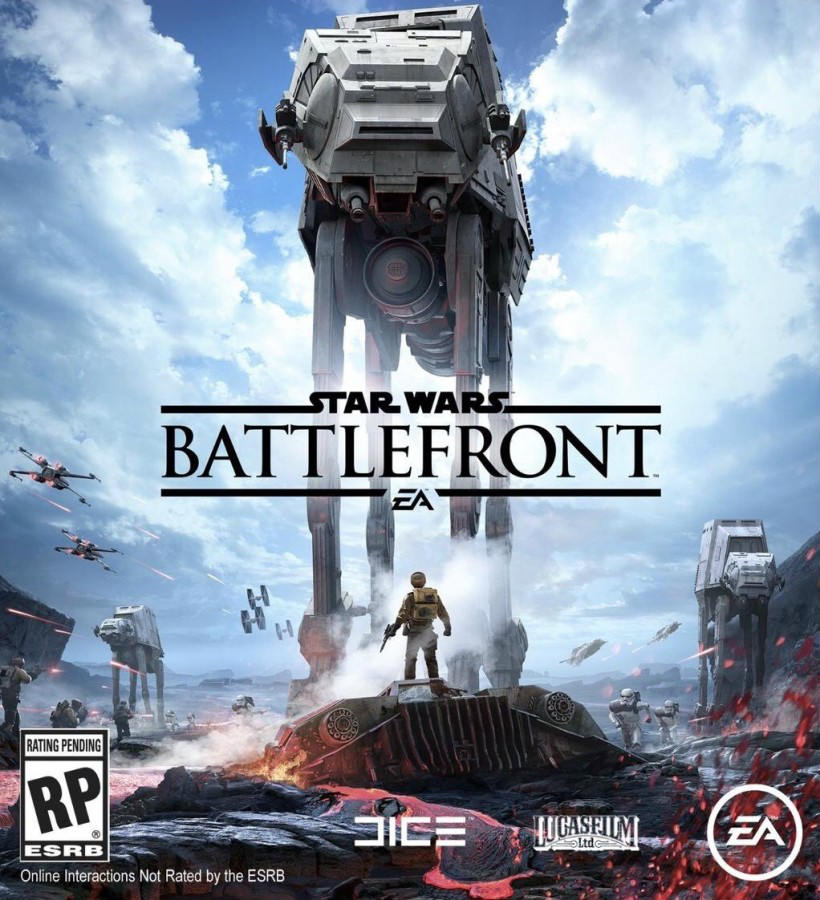
Star Wars Battlefront Font
Fonts in UseStar Wars Battlefront is a first- and third-person shooter video game series set in the Star Wars universe, where players can engage in large-scale battles across iconic locations and play as characters from both the Galactic Empire and the Rebel Alliance.
The game logo's serif font resembles Trajan Bold, created by Carol Twombly, who was inspired by Roman lettering. The "Star Wars" text is similar to the Starjedi font by Boba Fonts, designed for the franchise.